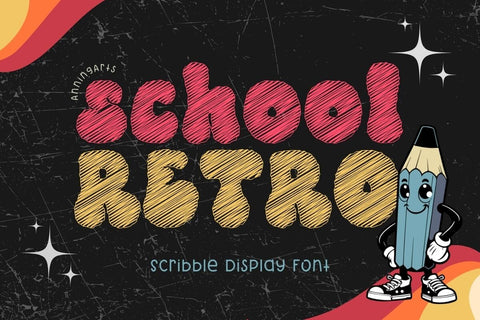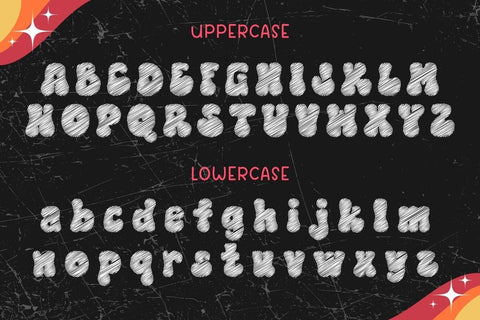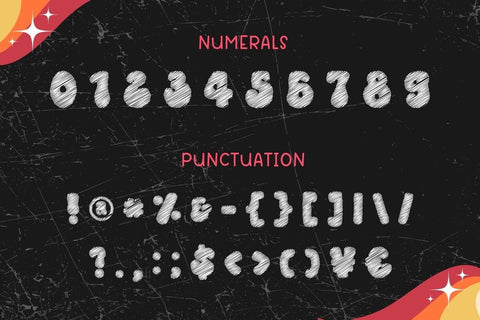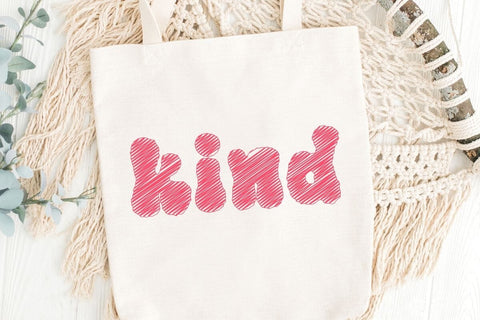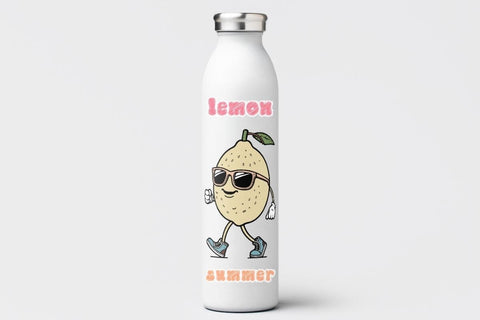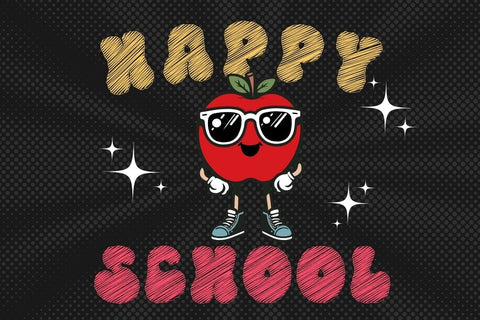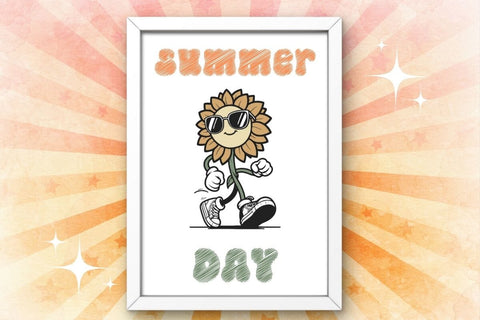
School Retro - Display Font
Introducing School Retro, a captivating Scribble Display font that harmoniously fuses playful and groovy lettering with a nostalgic back-to-school theme. This typeface adds a sprinkle of yesteryears charm to any project, making your design visually stimulating and irresistibly unique. Significant for its retro flair, School Retro embodies quirky individuality while echoing timeless school-day memories. Let every keystroke be a tribute to groovy and immersive learning adventures of the past. Perfect for creating a wide variety of new designs to match products such as banners, content, mugs, cards, shirts, stationery, social media posts, and more!